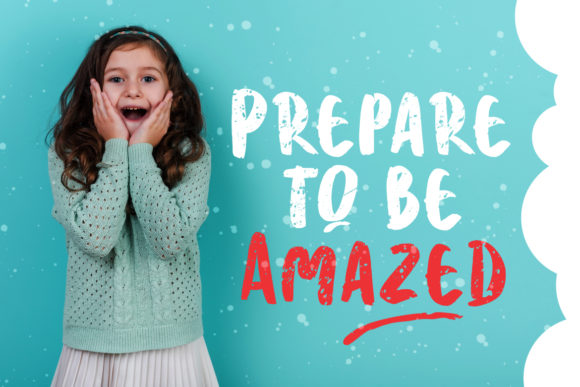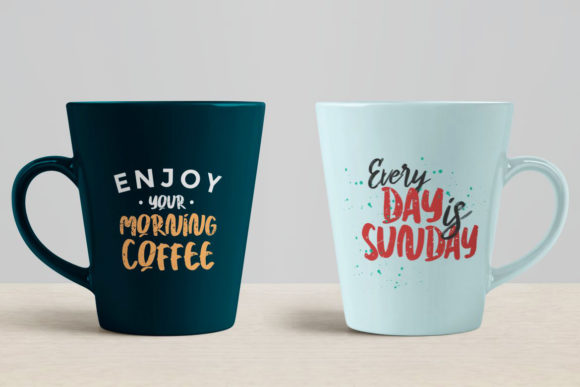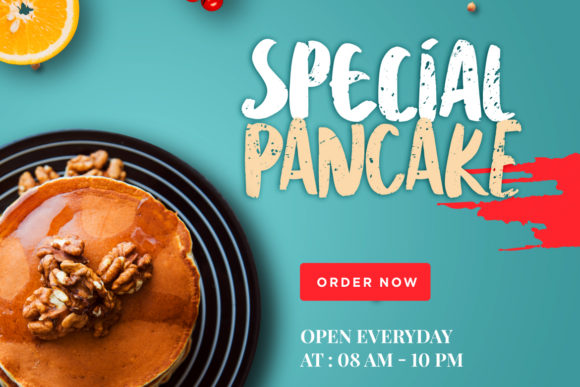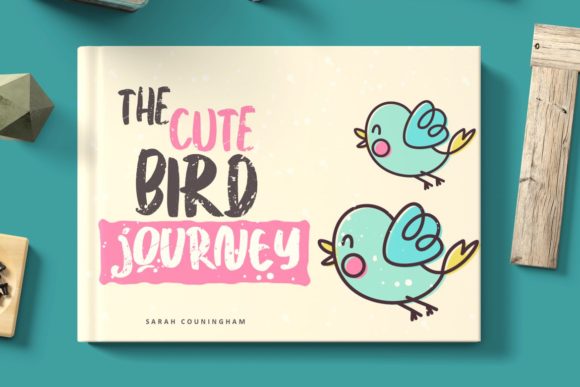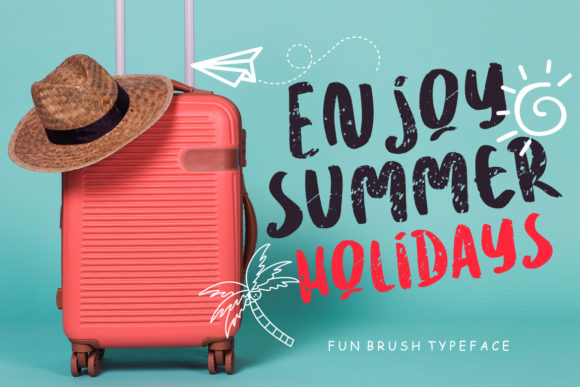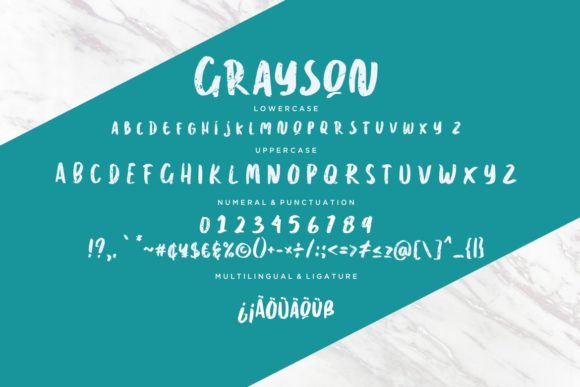
Grayson Font: The Ultimate Handwritten Font for Creative Projects
Are you looking for a font that can add a touch of playfulness and friendliness to your creative projects? Look no further than the Grayson font! This enchanting handwritten font is created with the help of a brush pen, giving it a unique and organic feel that’s perfect for kids and school projects, as well as any design that needs a personal touch.
The Characteristics of Grayson Font
Grayson font is a fun and incredibly friendly handwritten font that’s designed to make your creative ideas stand out. Its childlike playfulness and innocent charm make it perfect for projects that require a lighthearted and approachable tone. The font’s unique characteristics include:
- Handwritten with a brush pen: The Grayson font is created with the help of a brush pen, giving it a distinctive and organic feel that’s reminiscent of handwritten text.
- Playful and childlike: The font’s playful and childlike charm makes it perfect for kids and school projects, as well as any design that needs to appeal to a younger audience.
- Unique and creative: The Grayson font is designed to help your creative ideas stand out, making it perfect for designers and crafters who want to add a personal touch to their work.
Why Choose Grayson Font?
So why choose the Grayson font for your creative projects? Here are just a few reasons:
- Perfect for kids and school projects: The Grayson font is ideal for kids and school projects, such as worksheets, posters, and presentations.
- Great for crafters and designers: The font’s unique and creative feel makes it perfect for crafters and designers who want to add a personal touch to their work.
- Easy to read: The Grayson font is easy to read, making it perfect for large and small text sizes.
- Versatile: The font can be used for a wide range of creative projects, from digital designs to print materials.
How to Use Grayson Font in Your Creative Projects
Using the Grayson font in your creative projects is easy! Here are a few tips:
- Pair it with other fonts: The Grayson font pairs well with other fonts, such as sans-serif fonts, to create a unique and interesting contrast.
- Use it for headings and titles: The Grayson font is perfect for headings and titles, where its playful and childlike charm can really shine.
- Add it to your digital designs: The Grayson font can be used in digital designs, such as social media graphics, blog posts, and presentations.
- Use it for print materials: The font can also be used for print materials, such as brochures, flyers, and posters.
If you’re a designer or crafter looking to use the Grayson font in your creative projects, here are a few tips:
- Experiment with different colors: The Grayson font looks great in a variety of colors, so don’t be afraid to experiment and find the perfect hue for your project.
- Use it to add a personal touch: The Grayson font is perfect for adding a personal touch to your designs, so don’t be afraid to get creative and add your own unique flair.
- Pair it with images: The Grayson font pairs well with images, so consider using it in combination with photos or illustrations to create a visually interesting design.
In conclusion, the Grayson font is a fun and incredibly friendly handwritten font that’s perfect for creative projects that require a lighthearted and approachable tone. Its childlike playfulness and innocent charm make it ideal for kids and school projects, as well as any design that needs to appeal to a younger audience. With its unique and creative feel, the Grayson font is sure to turn any creative idea into a true standout.